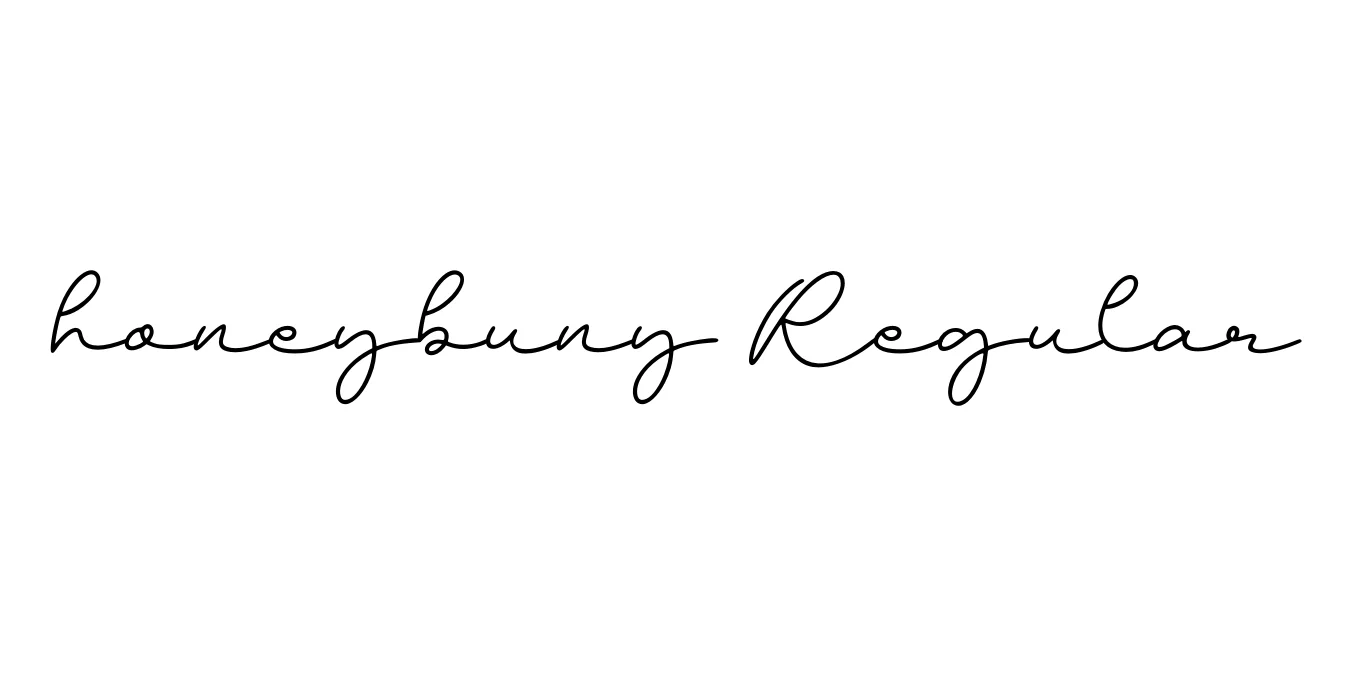
honeybuny Regular
Designed by Subectype & Mansi
| Font Name | honeybuny |
| Category | Display / Decorative |
| Designer | Subectype & Mansi |
Honeybuny Regular is a charming and playful display typeface designed to bring a sense of warmth and friendliness to any creative project. Its rounded edges and organic, hand-drawn feel make it an ideal choice for designs targeting younger audiences or projects requiring a soft, approachable aesthetic.
This font excels in informal settings, such as children's books, greeting cards, and social media graphics. With its balanced letterforms and high legibility, Honeybuny Regular provides a whimsical touch without sacrificing clarity, making it a versatile tool for designers looking to infuse personality into their work.
honeybuny Regular Best Uses
Creating engaging and friendly Instagram or Pinterest graphics.
Ideal for children's toys, snacks, or eco-friendly products.
Perfect for birthday cards or casual invitations.
Great for t-shirt slogans and casual clothing brands.